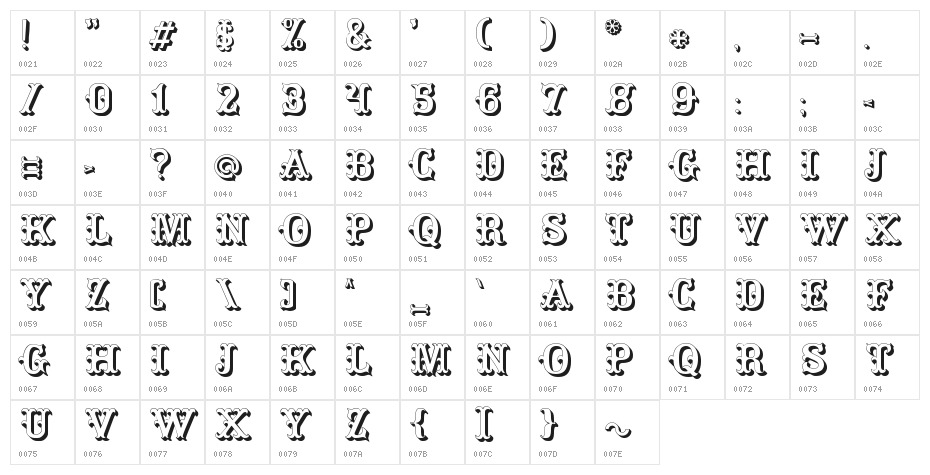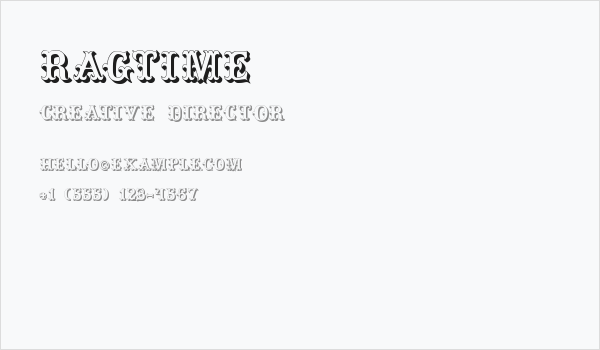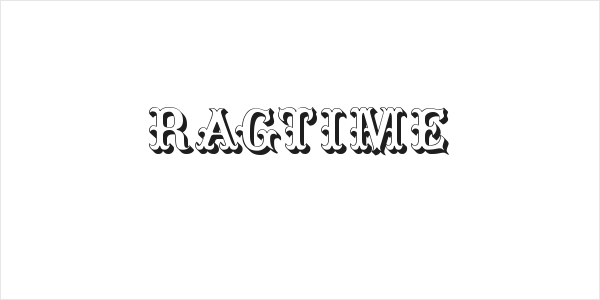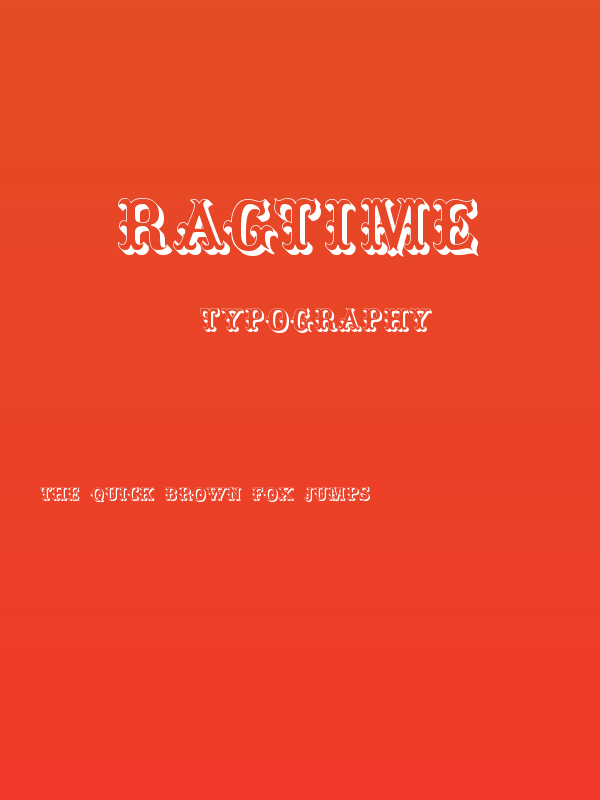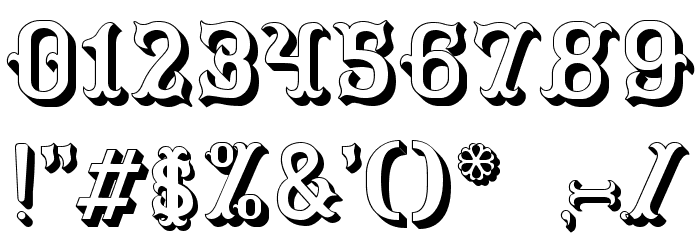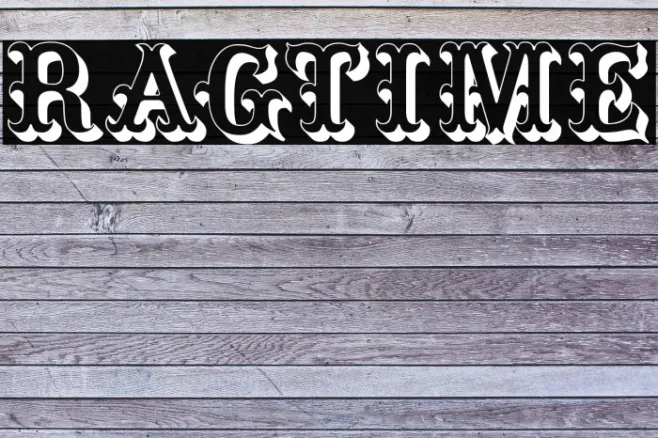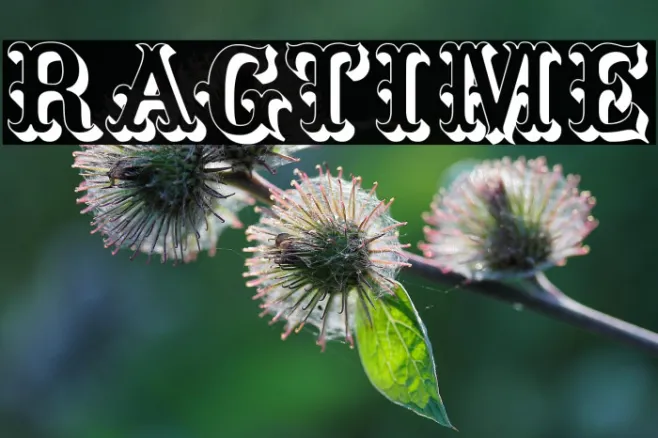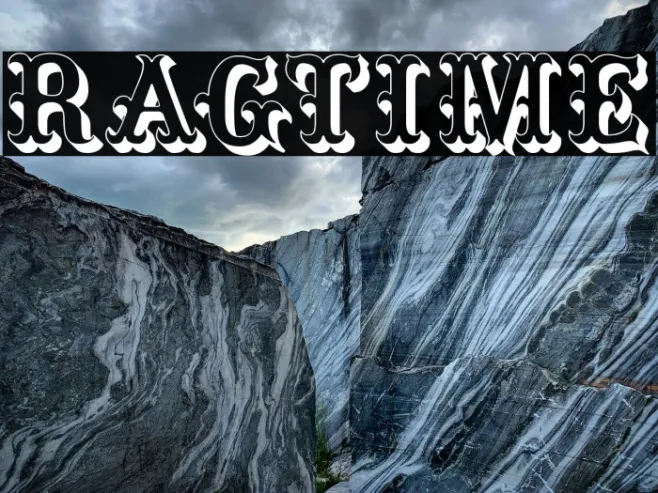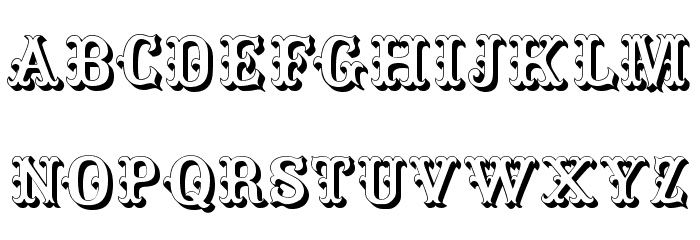
Ragtime Font
Ragtime Description
This font features a bold and decorative style with a vintage flair. Each character is intricately designed with ornate detailing, giving it a unique and eye-catching appearance. The letters have a shadow effect that adds depth and dimension, making them stand out prominently. The overall design is reminiscent of early 20th-century typography, often seen in posters and advertisements from that era. The font's elaborate style makes it ideal for projects that require a touch of nostalgia and elegance.
| Use Case | Headlines, Logos, Decorative text |
| Proposed Projects | Ideal for vintage-themed posters, event invitations, branding for retro products, and decorative signage. |